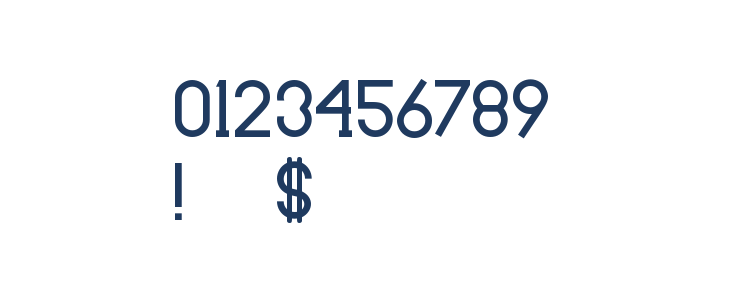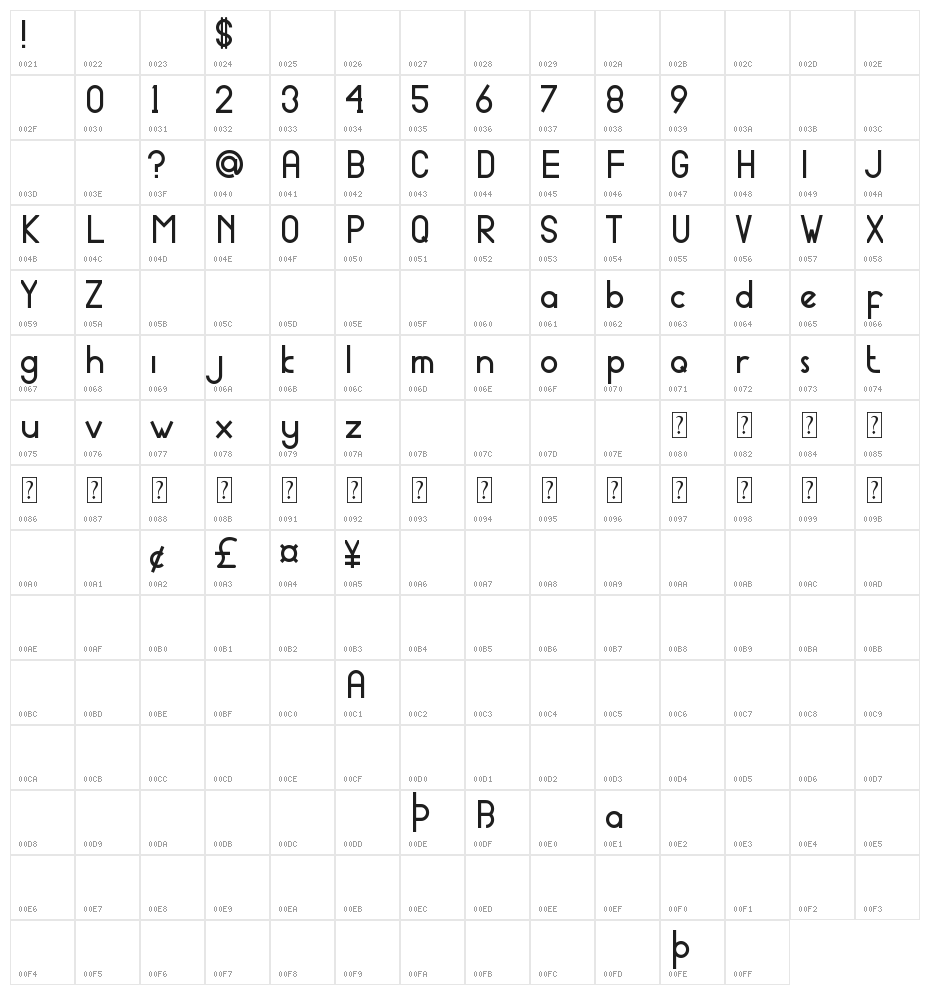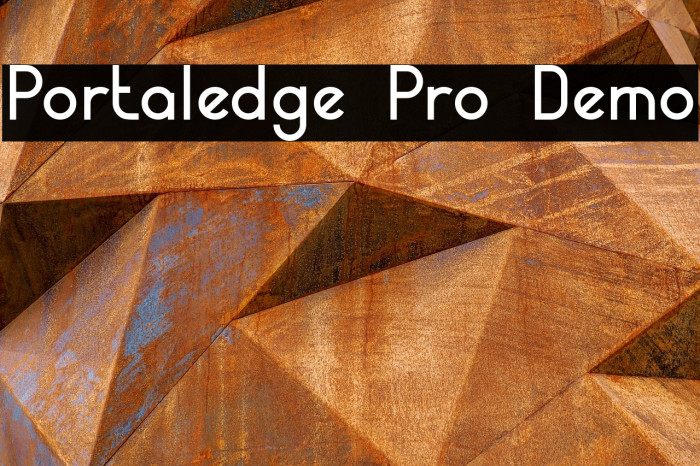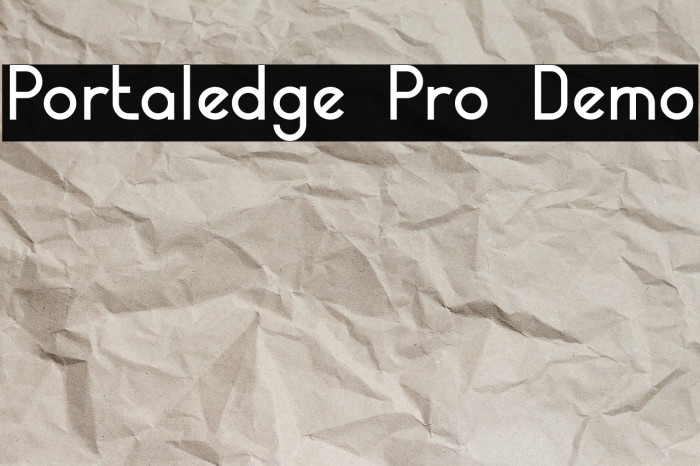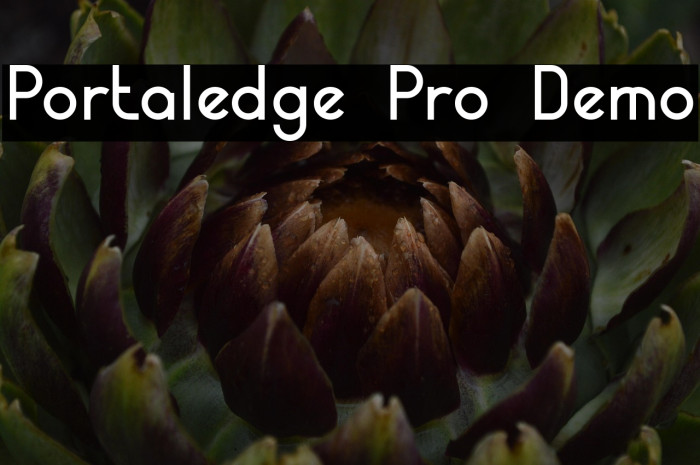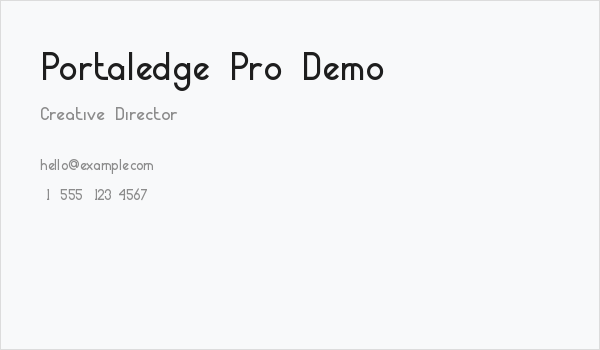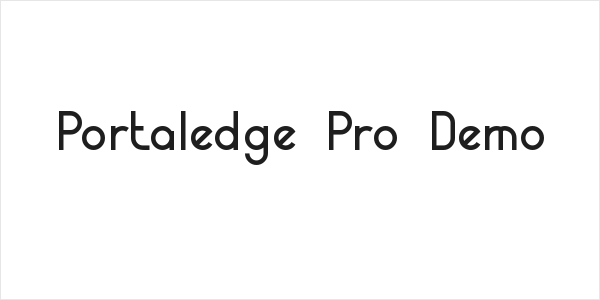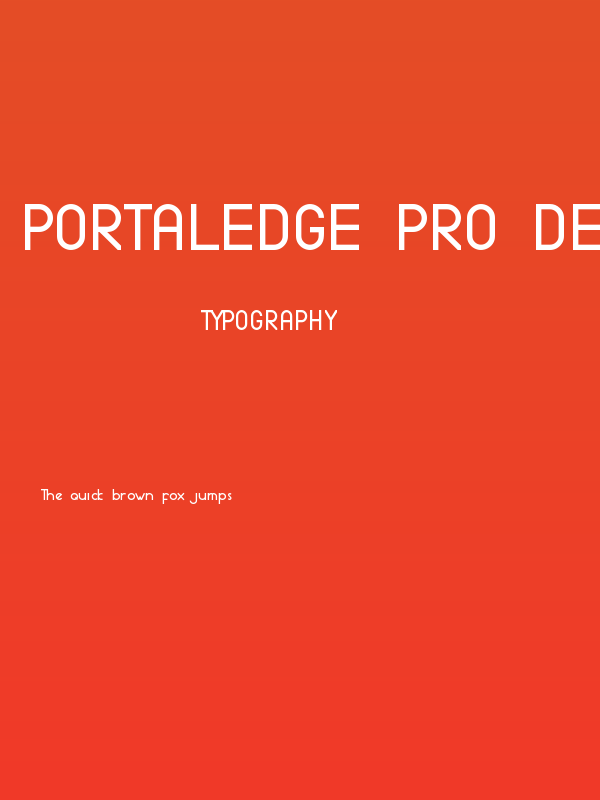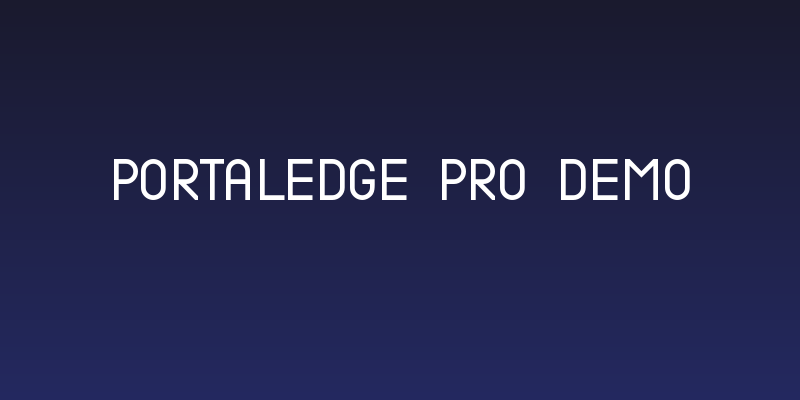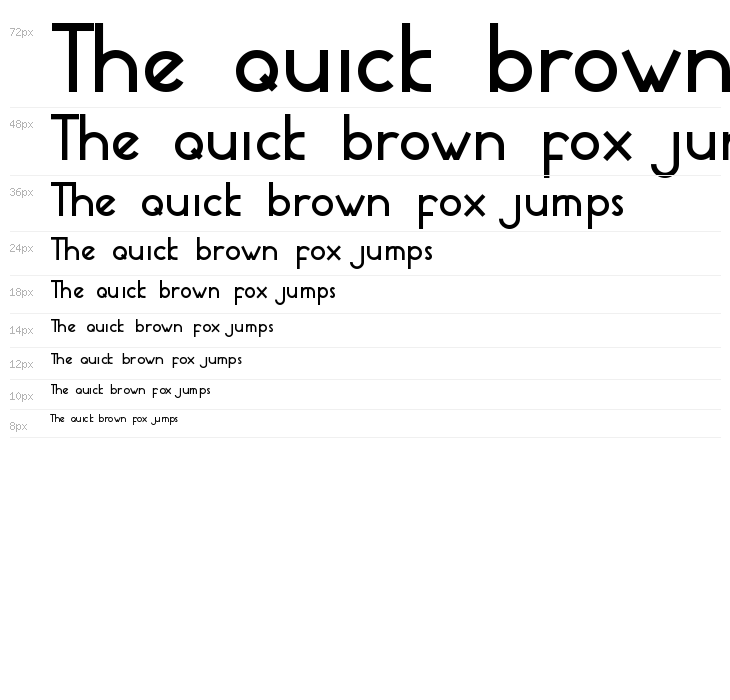
Portaledge Pro Demo Font
Portaledge Pro Demo Description
This font features a clean, geometric design with a modern aesthetic. The uppercase letters are uniform in height, providing a balanced and structured appearance. The lowercase letters maintain a similar geometric style, with rounded edges that soften the overall look. The numerals are consistent with the letterforms, offering a cohesive visual experience. Special characters are designed to match the overall style, ensuring versatility in various design contexts. The font's simplicity and clarity make it suitable for a wide range of applications, from digital interfaces to print media.